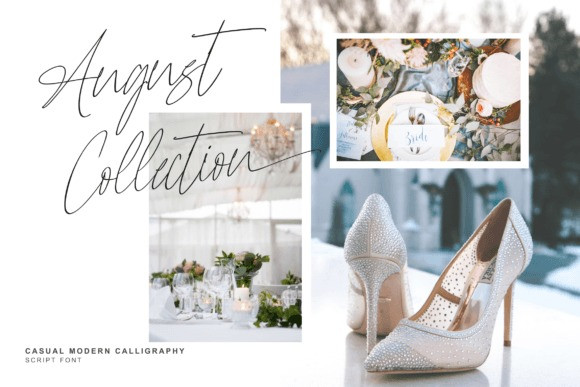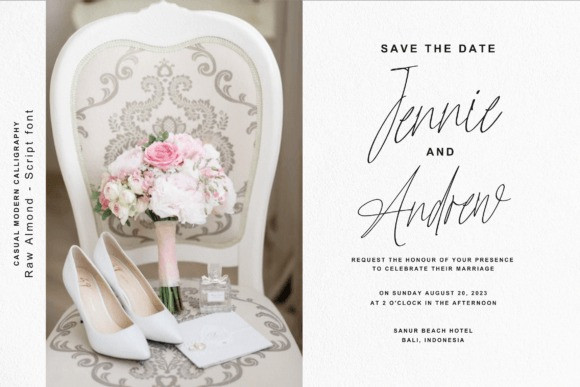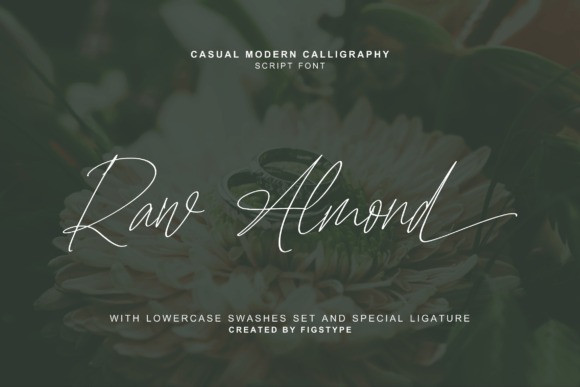
Raw Almond Font
Raw Almond Handwritten Font is a beautiful script font with elegant swashes. It has a fluid and handwritten feel, making it perfect for a variety of design projects such as invitations, greeting cards, and social media posts. Celebrate in style with Raw Almond font. Perfect for special events and everyday moments. This font is PUA encoded which means you can access all glyphs and swashes effortlessly!